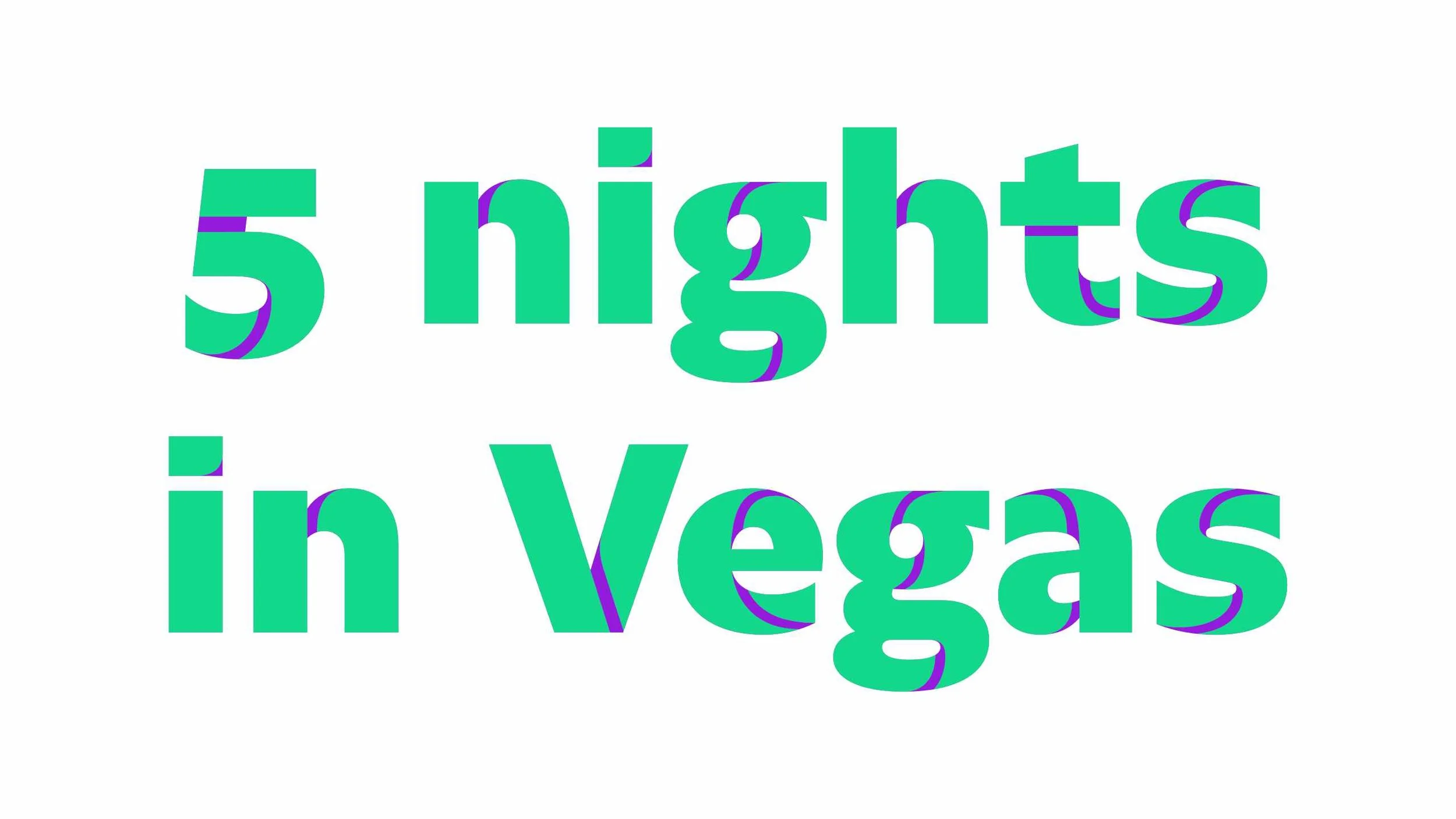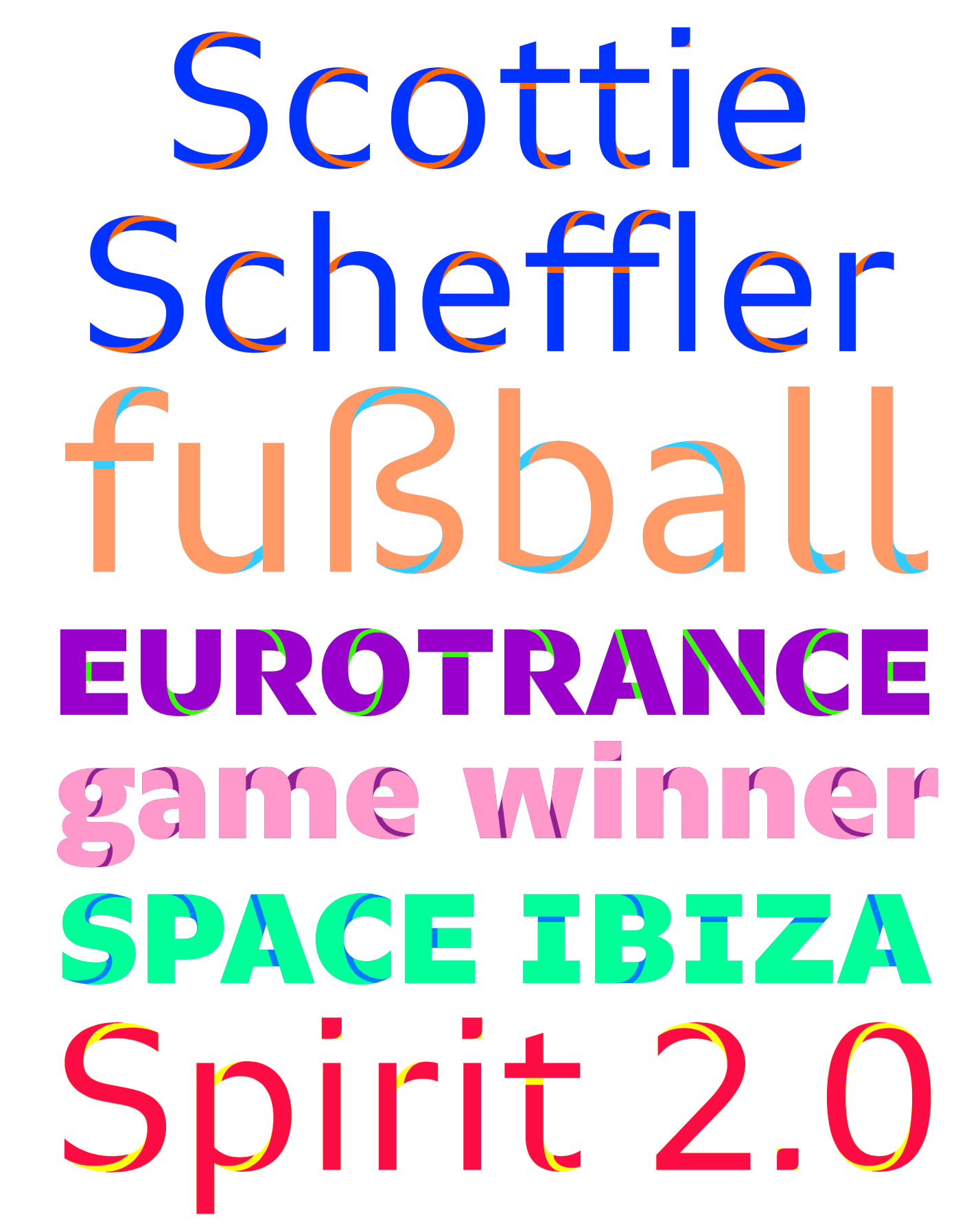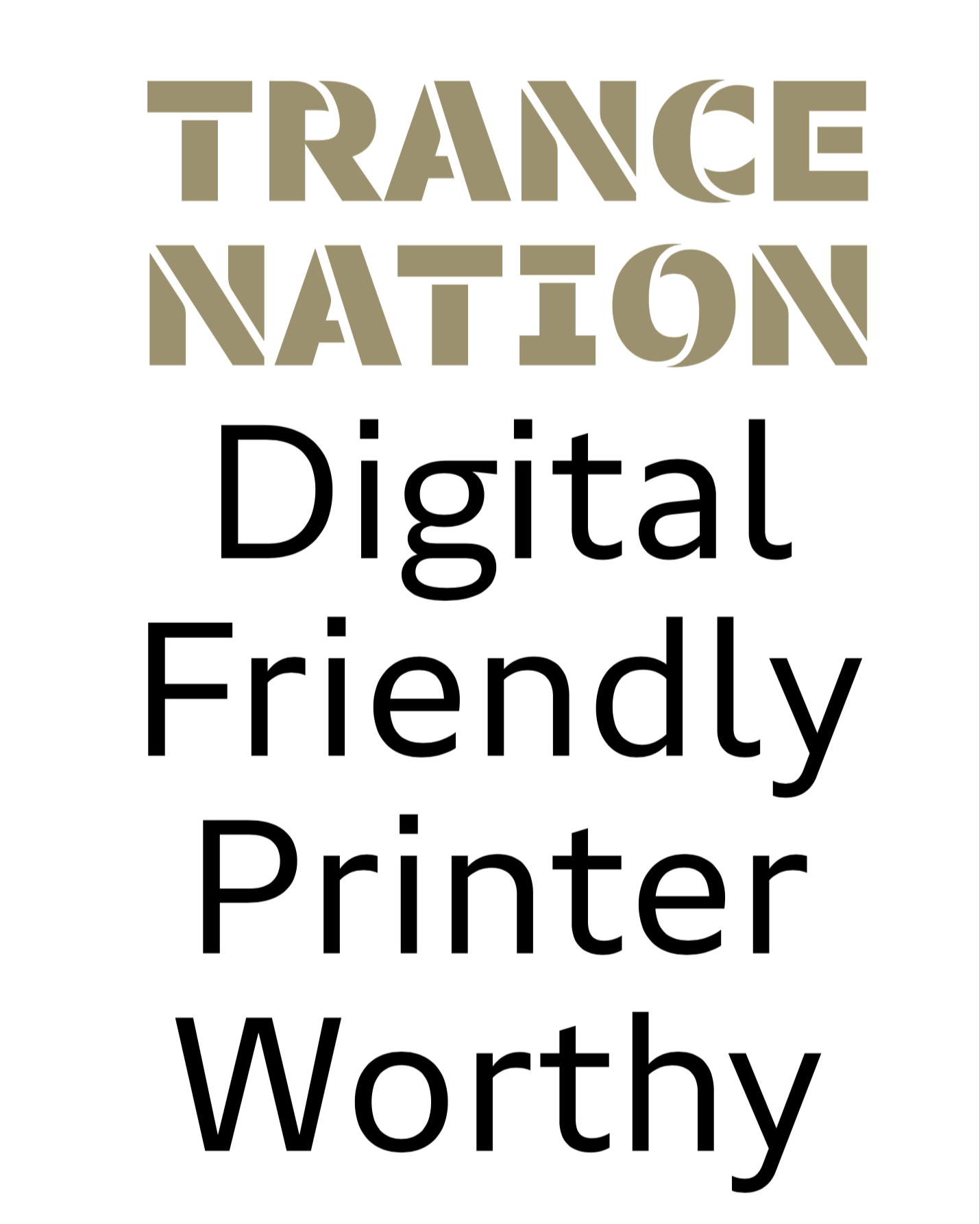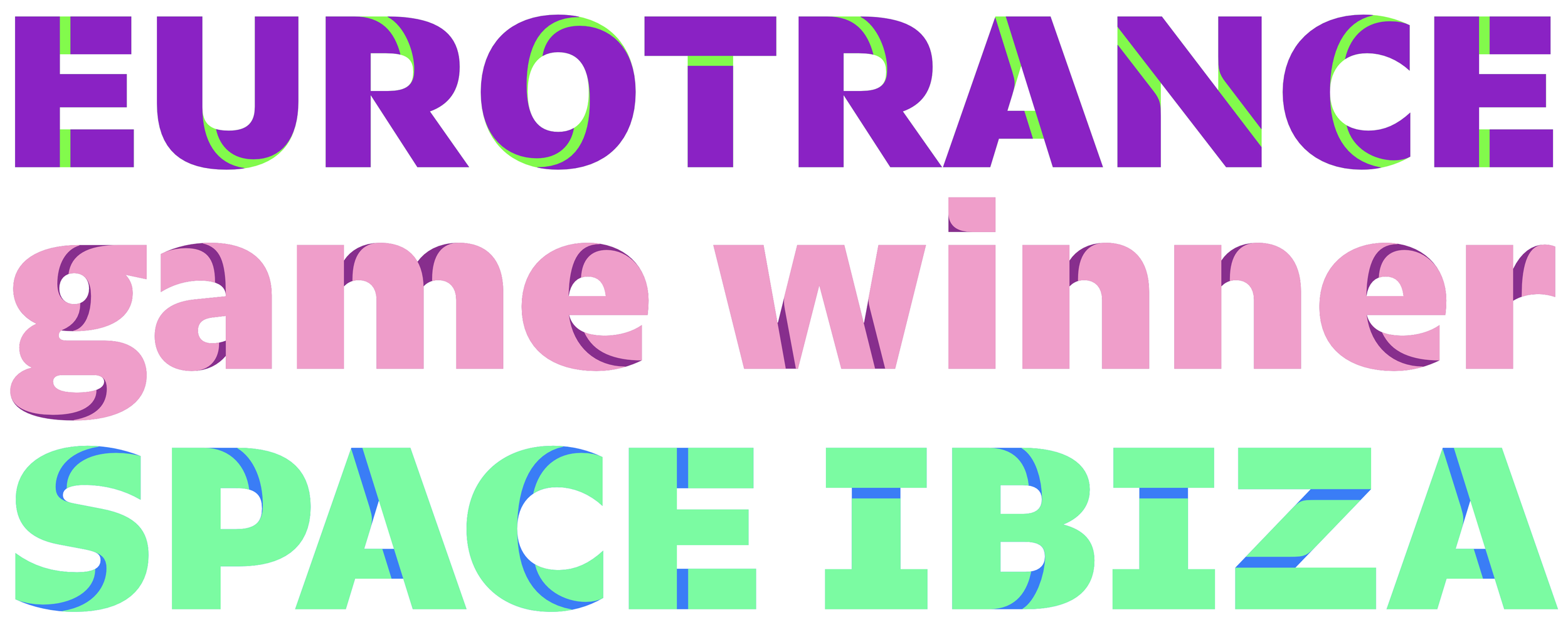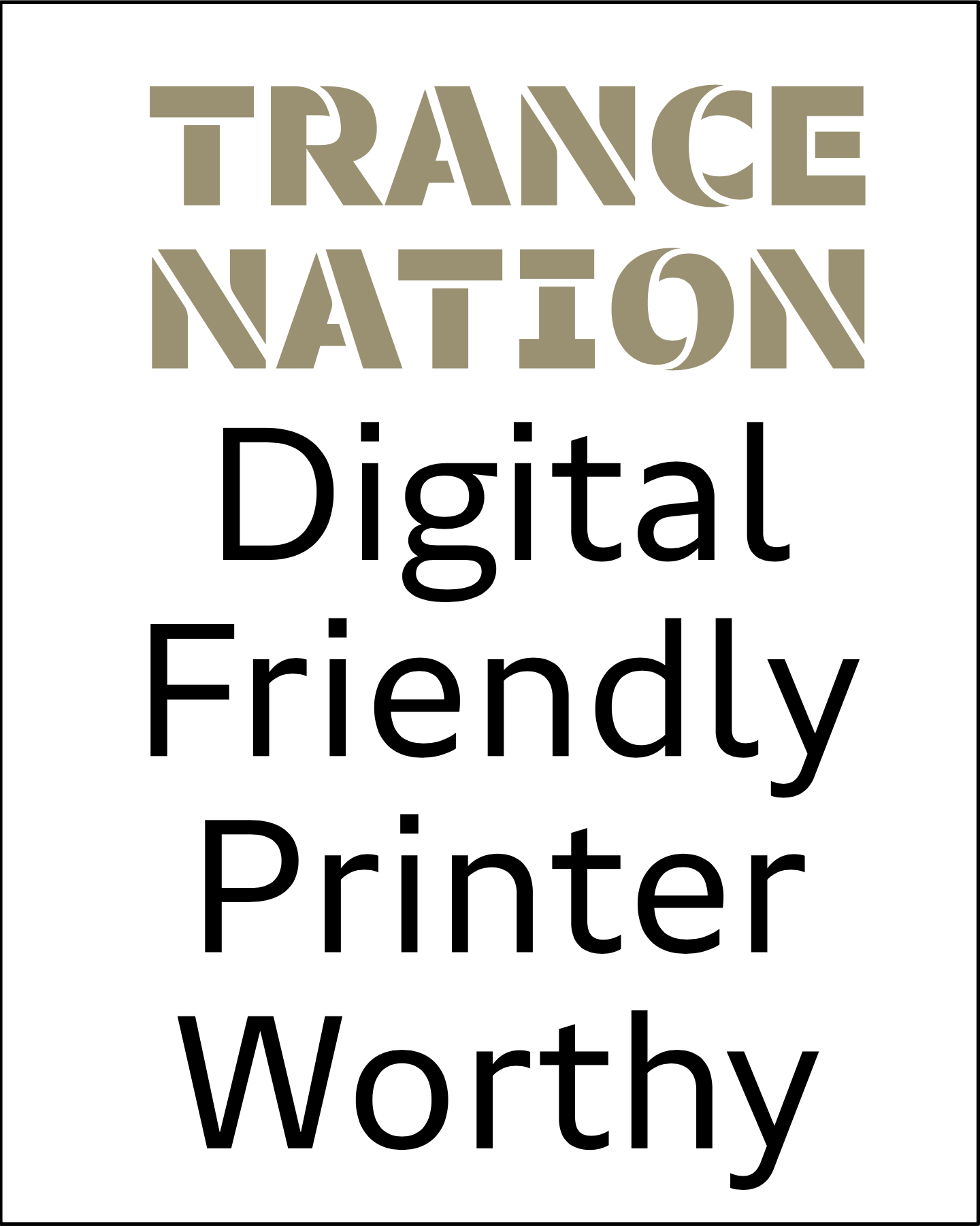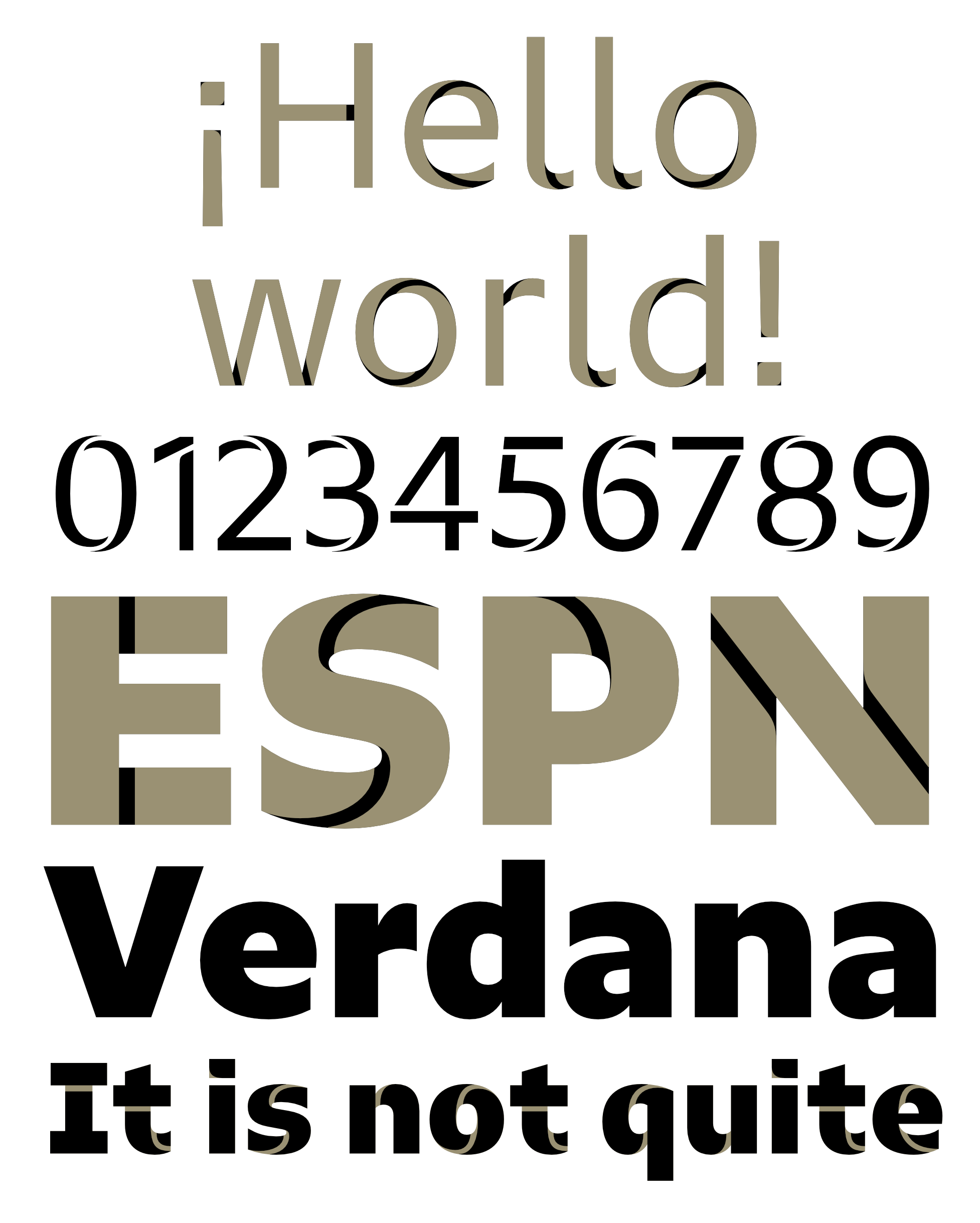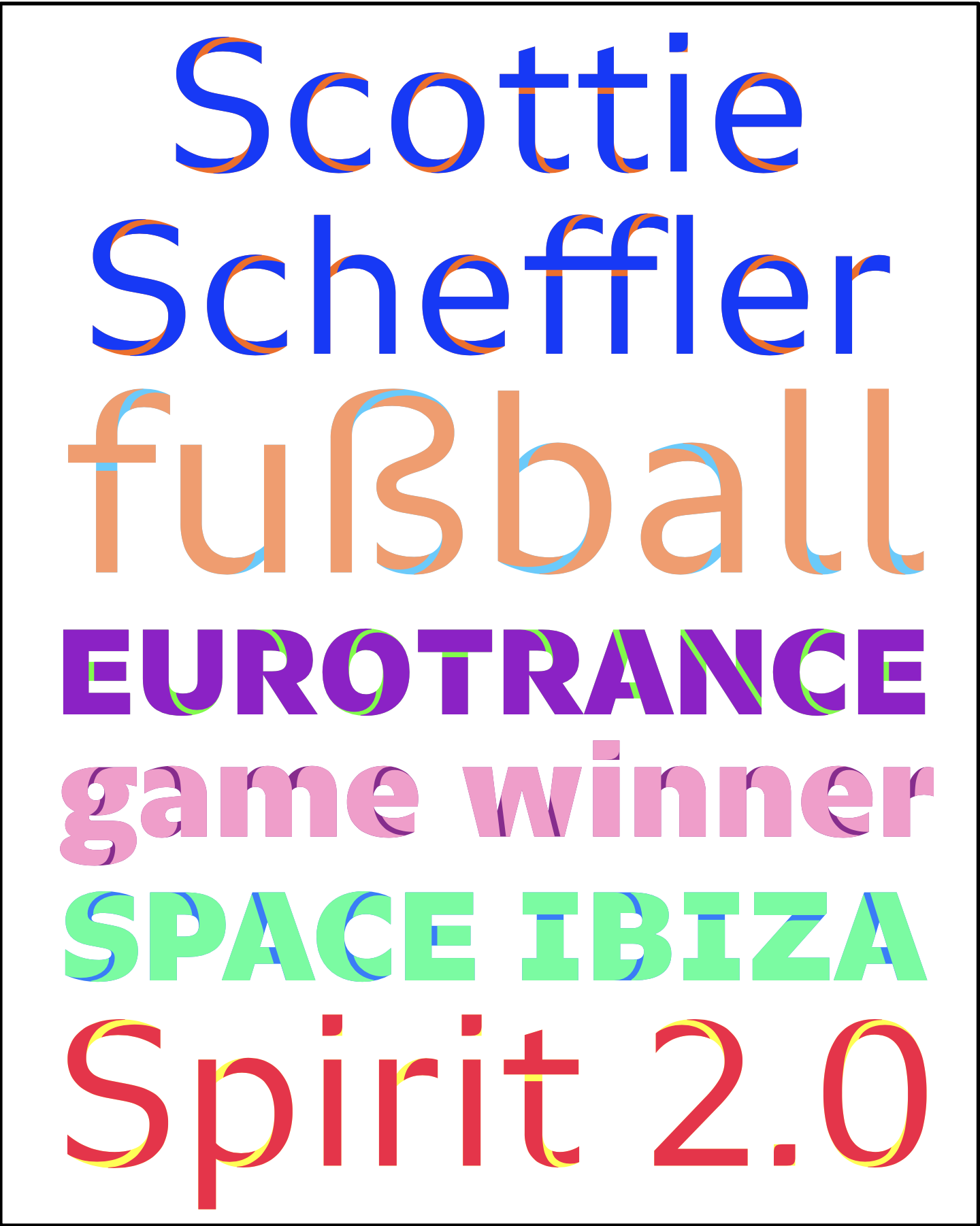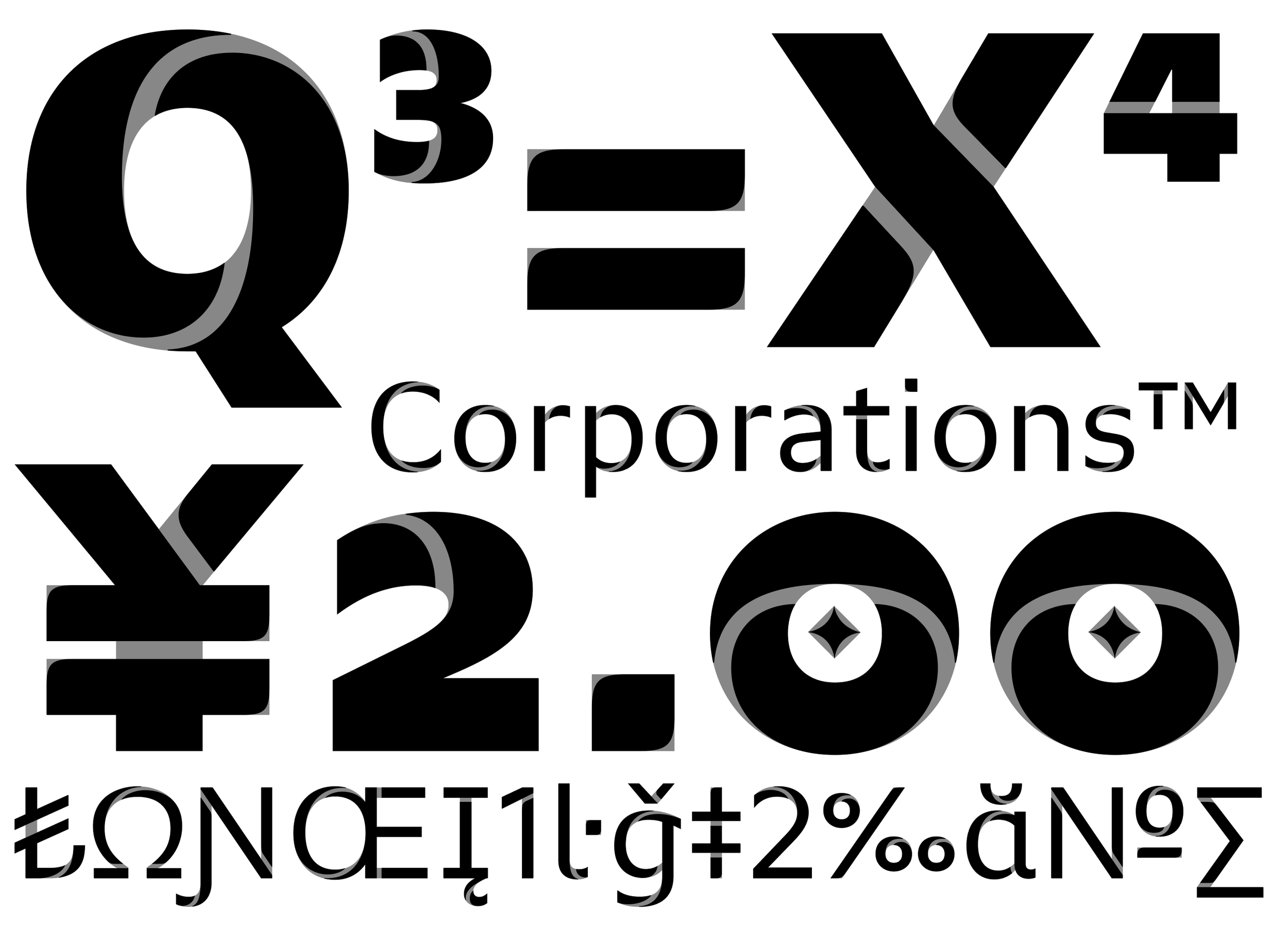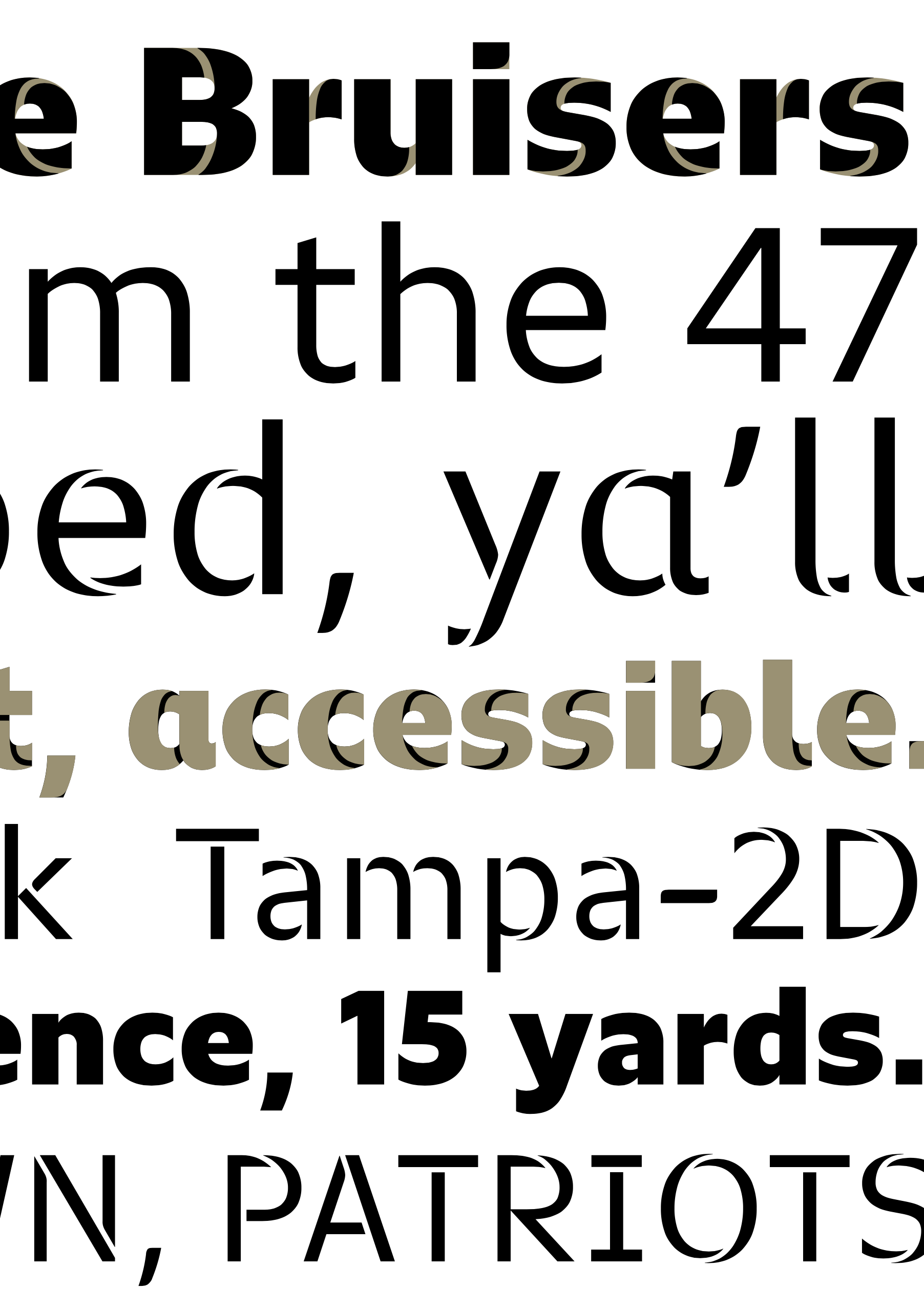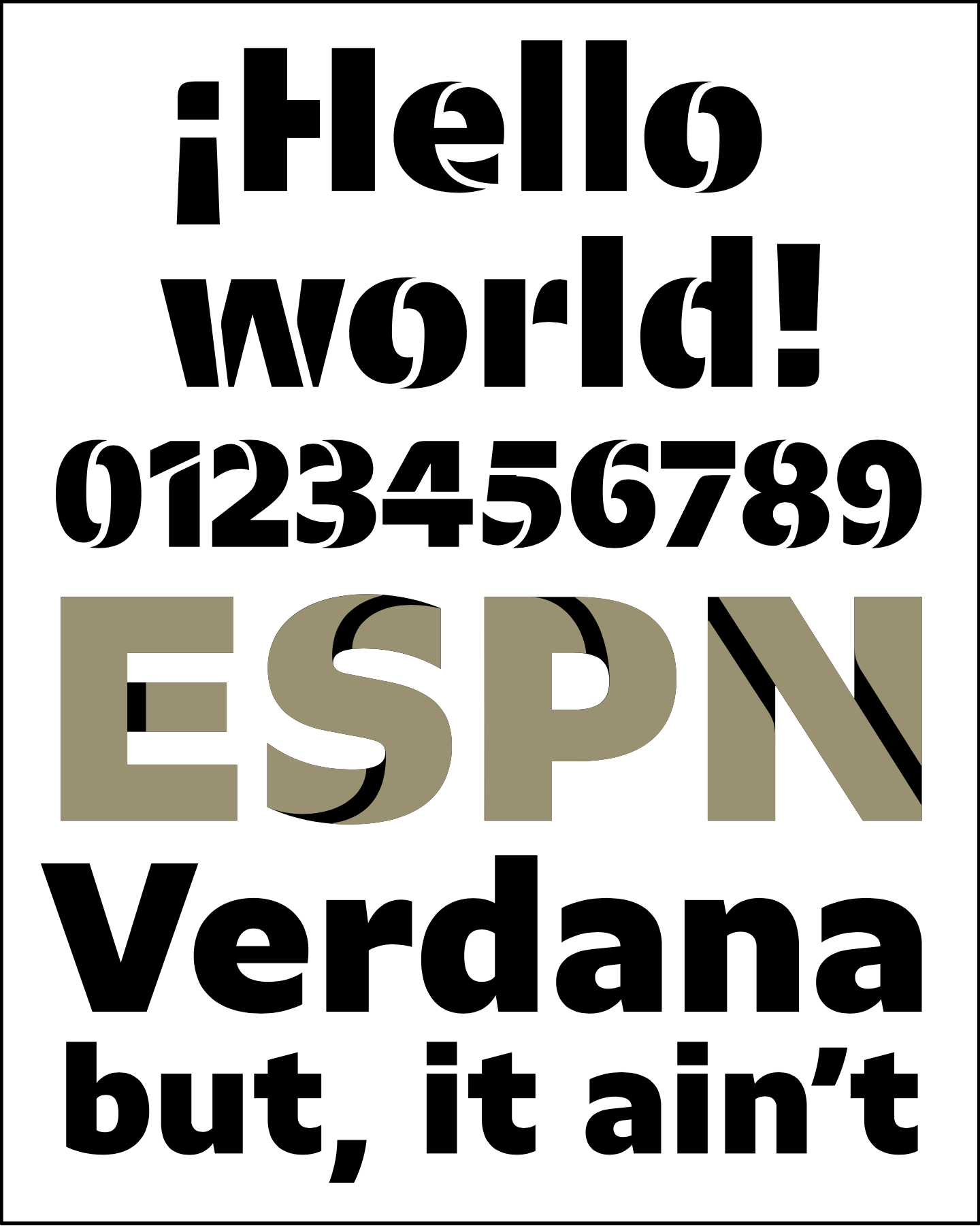
Simple with a Layer of Twist
A neo-humanist sans with roots in the tube and British heritage. Dress it up with a layer of calligraphic stencilling or keep it simple for an approachable tone and presence.